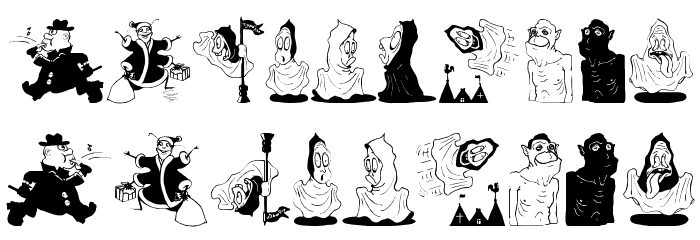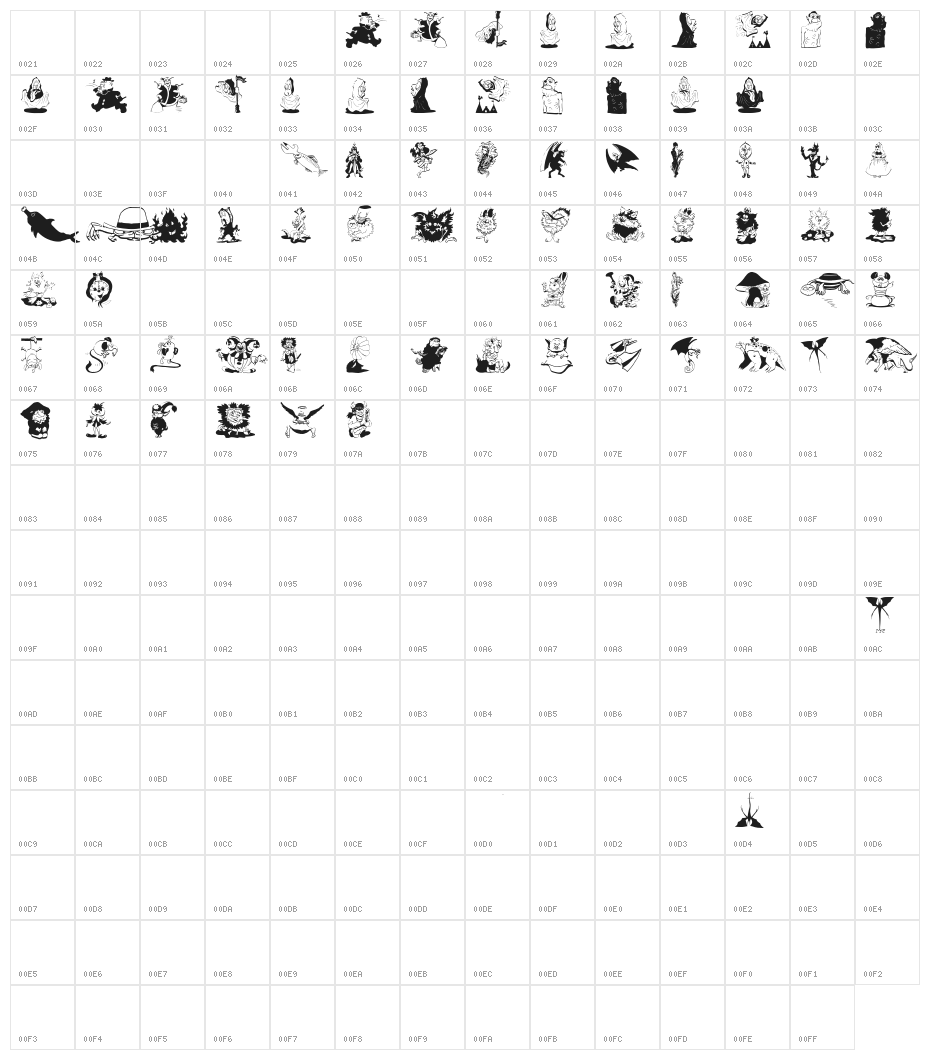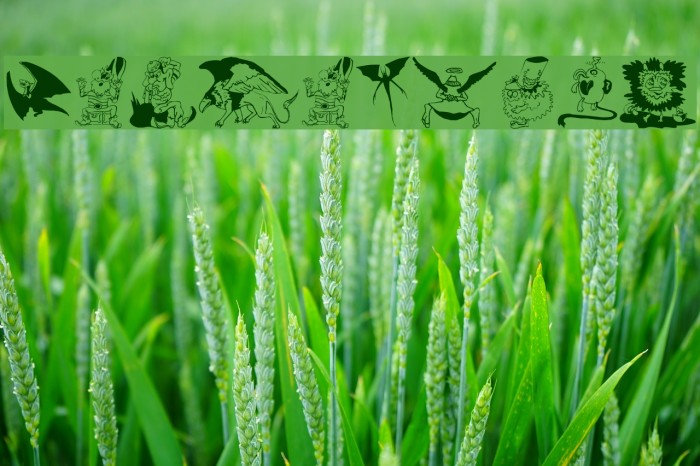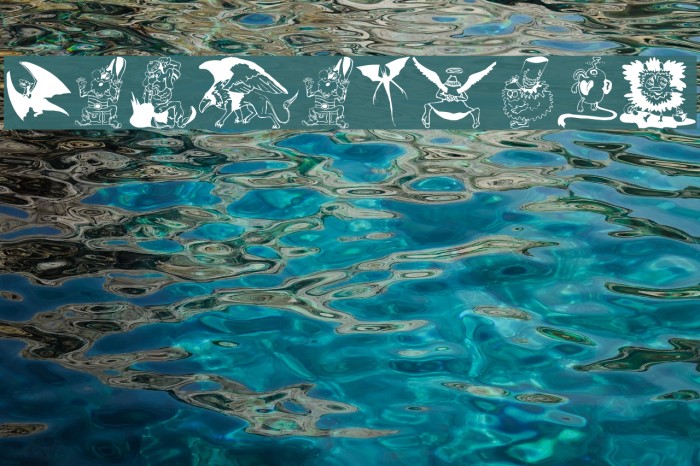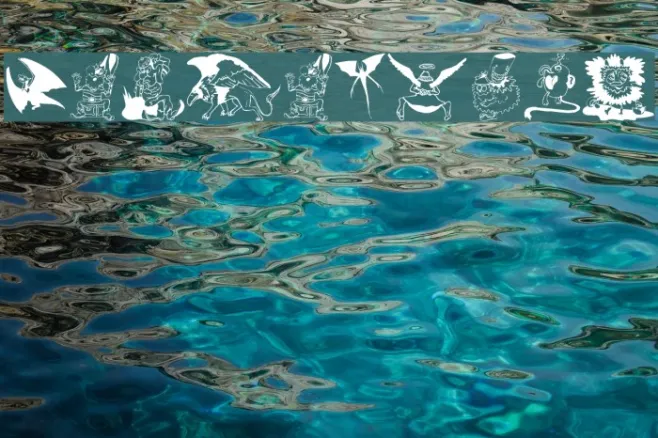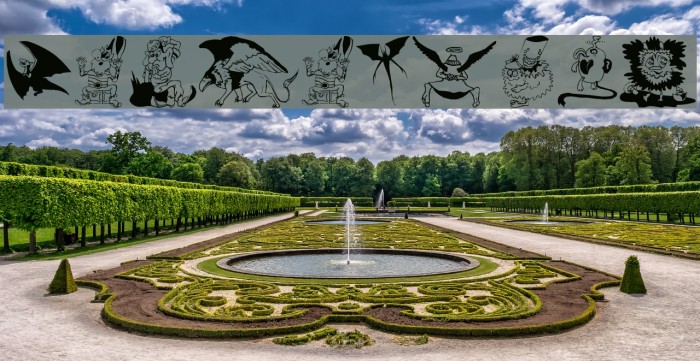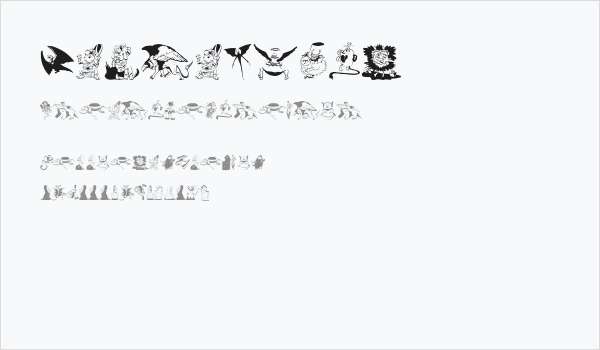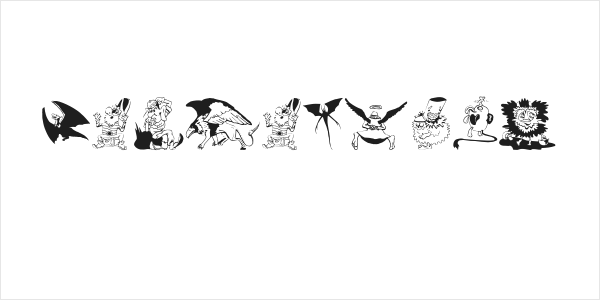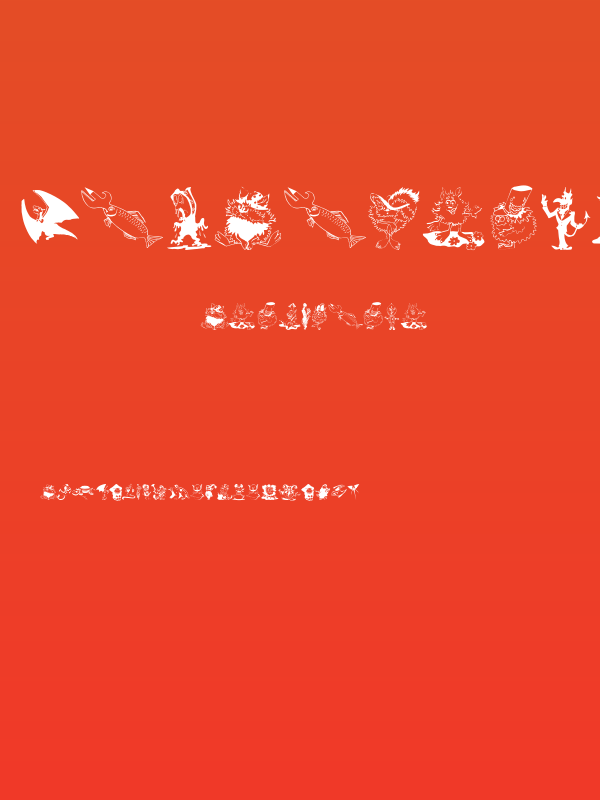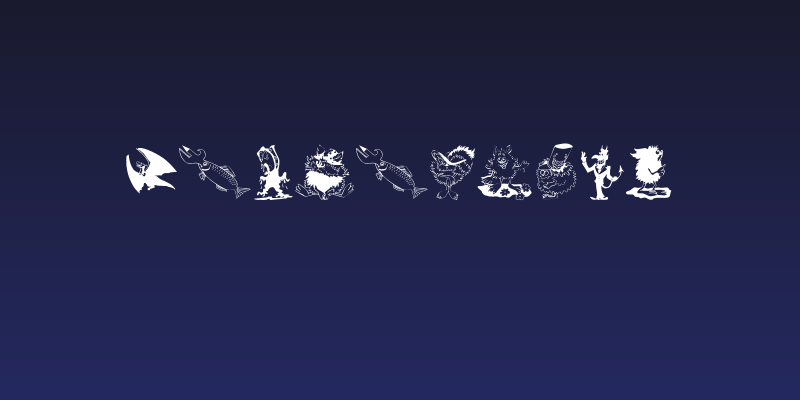
FantasyPix Font
FantasyPix Description
A highly decorative and whimsical collection of fantasy-themed illustrated characters, each glyph represented by a unique cartoon or mythical creature, blending playful and surreal elements with bold outlines and high visual contrast.
| Overall Style | Decorative, Whimsical, Fantasy |
| Use Case | Logos, Headlines, Posters, Themed Graphics |
| Proposed Projects | ChildrenΓ’β¬β’s books, fantasy game titles, party invitations, comic covers, themed posters. |